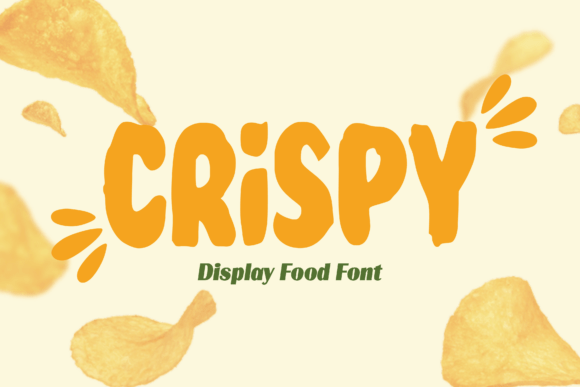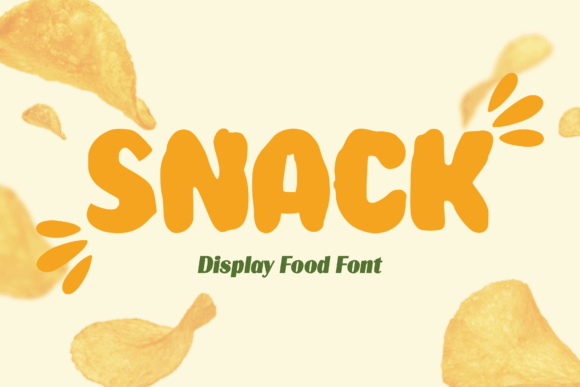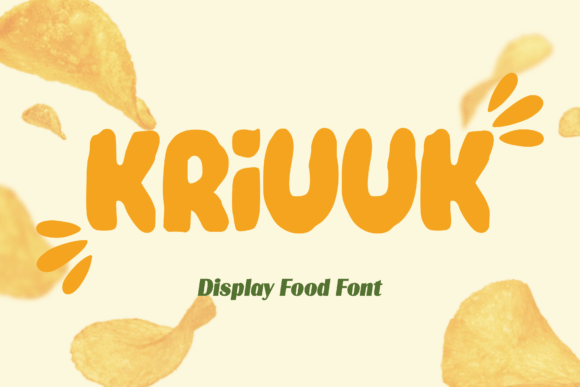
Crispy Font: Playful Display Font for Cricut & Cute Craft Projects
About the Crispy Font
Step up your design game with Crispy Font, a font that exudes confidence and style. ntroducing Crispy – a savory and crunchy blend of cute looks and style that brings a splash of sunshine to your creative projects. This cheerful font is perfect for a variety of themes, including summer, spring, fall, autumn, kids, back to school, labels, packaging, Valentine’s Day, Mother’s Day, crafts, greeting cards, decorations, craft lettering, and embroidery.
Crispy’s playful energy and distinct character make it ideal for headlines, short text blocks on packaging, and eye-catching branding elements for products targeting younger audiences or those with a lighthearted feel. It works particularly well for projects emphasizing themes of fun, creativity, and approachability. Avoid using Crispy for large bodies of text or UI elements; its unique forms can hinder readability in extended use.
Pairing Crispy with a clean sans-serif like Open Sans for body copy creates a balanced and professional aesthetic. For a more playful feel, consider a rounded geometric sans-serif such as Poppins. To add a touch of elegance, a delicate script font could complement Crispy in smaller applications, like logos or signature lines.
Crispy’s overall personality is best described as cheerful and friendly, conveying a sense of youthful energy and approachability. Its design lends itself well to projects needing a fun, memorable visual identity.